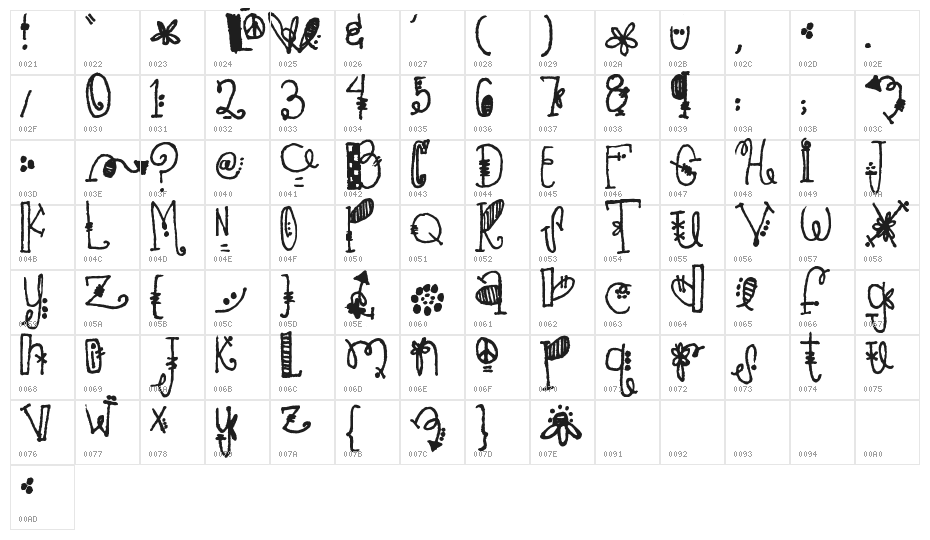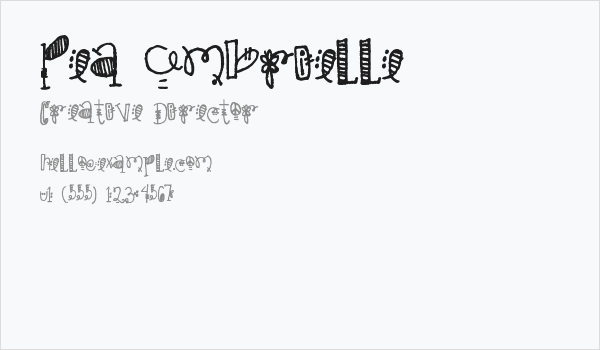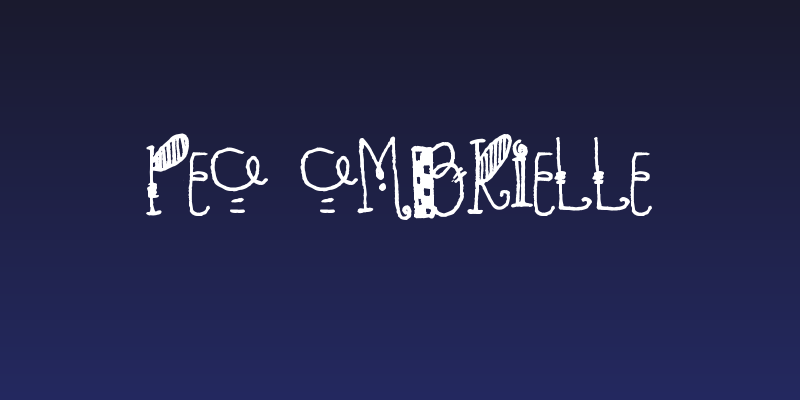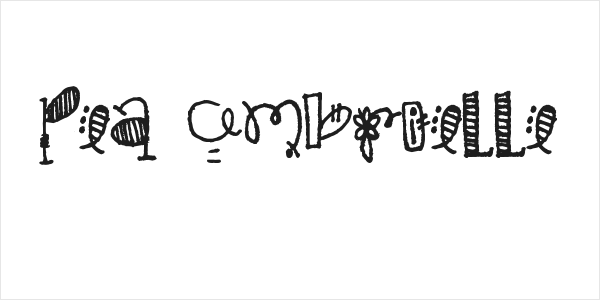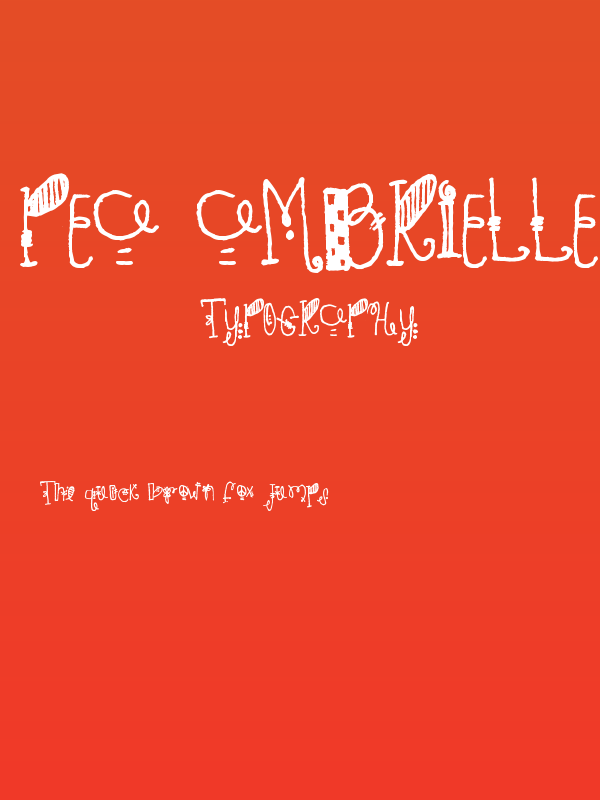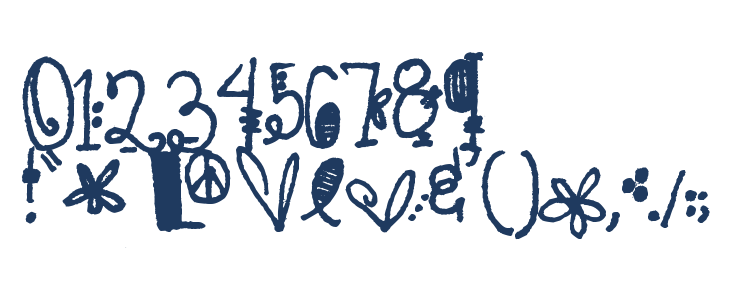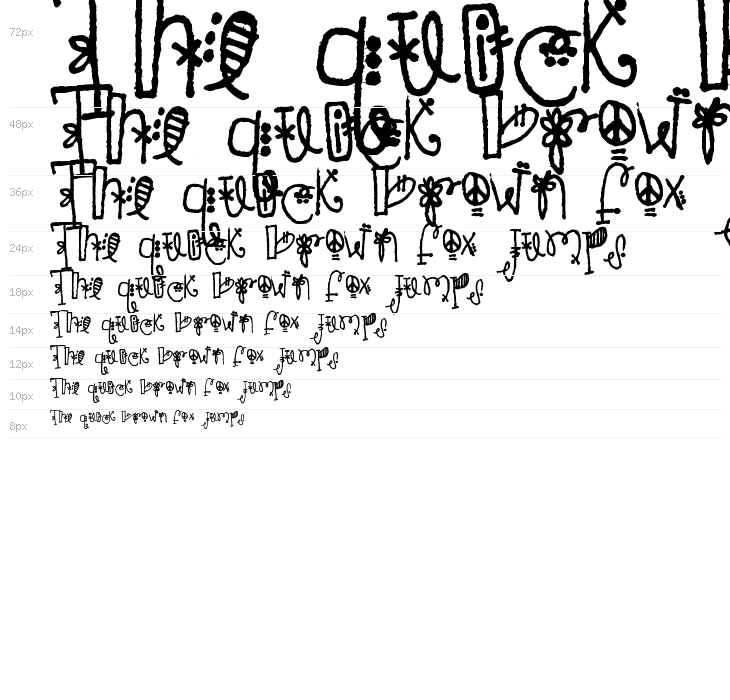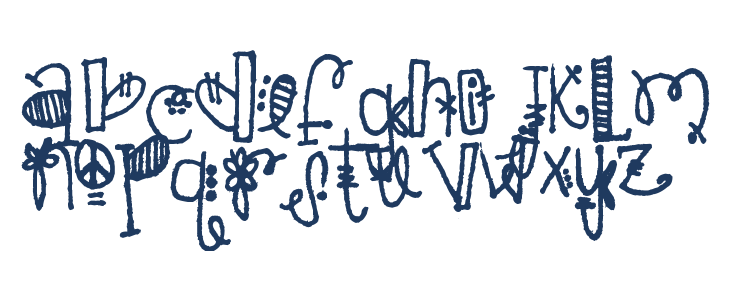
Pea Ambrielle Font
Pea Ambrielle Description
This font features a whimsical and playful design, characterized by its hand-drawn appearance and decorative elements. Each letter is uniquely crafted with intricate details, such as dots, swirls, and lines, giving it a lively and artistic feel. The uppercase and lowercase letters maintain a consistent style, while numbers and special characters are equally imaginative, incorporating various embellishments. The overall look is informal and creative, making it suitable for projects that require a touch of personality and flair.
| Use Case | Headlines, Logos, Artistic projects |
| Proposed Projects | Ideal for children's books, greeting cards, creative posters, and artistic branding. |